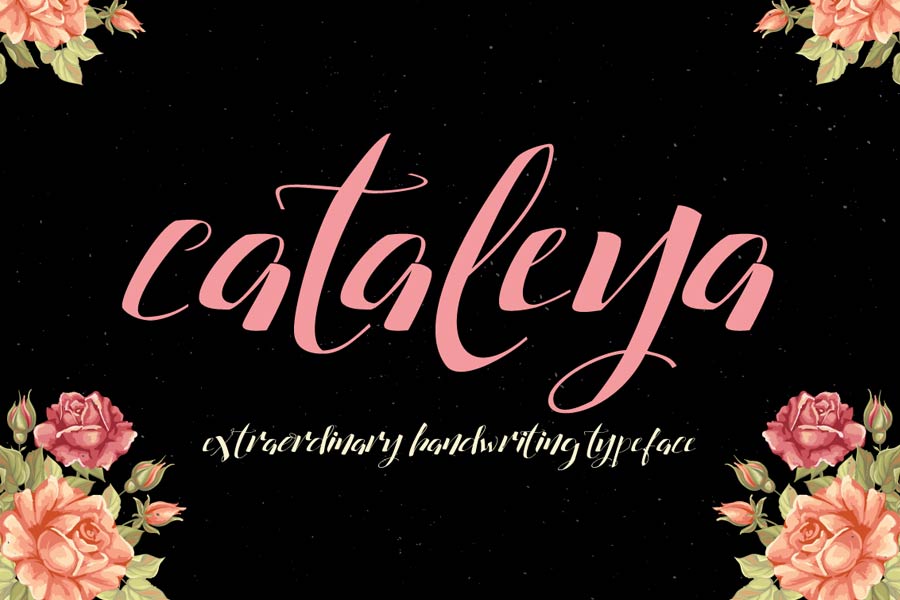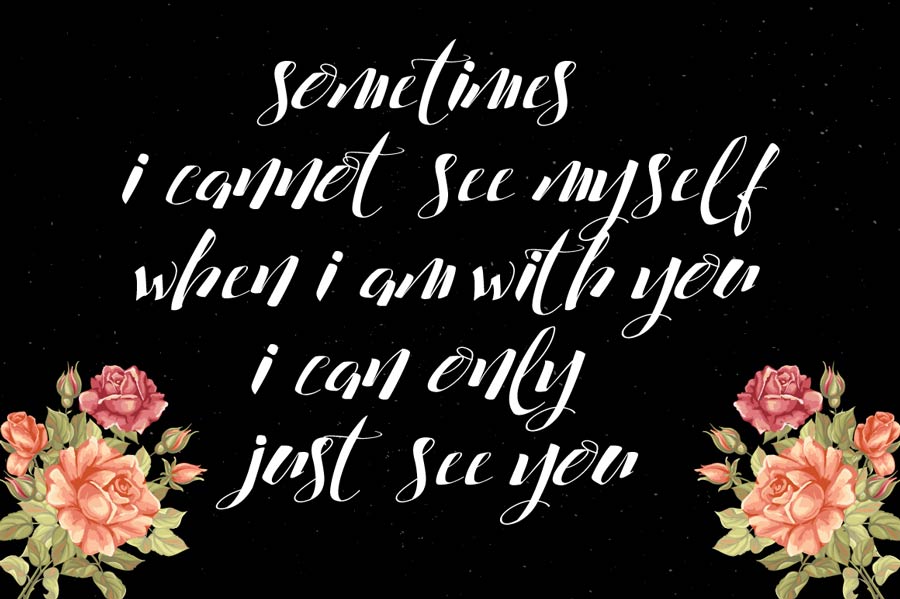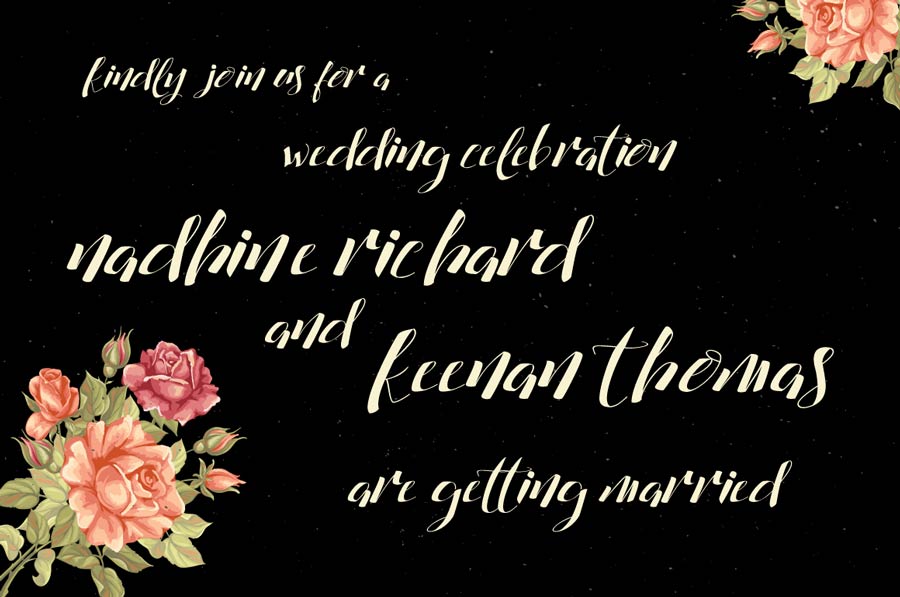
Cataleya is an elegant, presentational but less readable handwriting style font that is free to download. The font fits perfectly for many design applications especially wedding invitation cards, feminine designs and more. In the download folder, the author also included web font format for web use. Bear in mind that this font has only 26 lowercase characters only.
- Designer: Font Graphic Land
- Category: Calligraphy/Brush, Handwriting